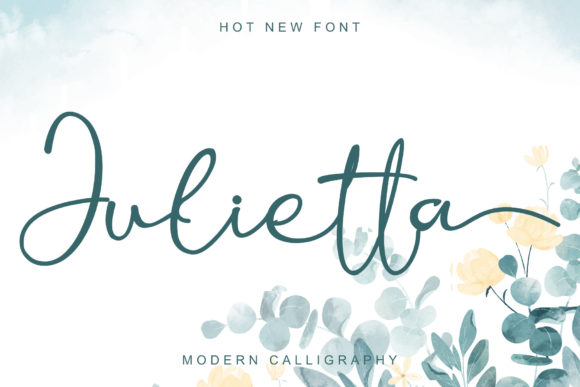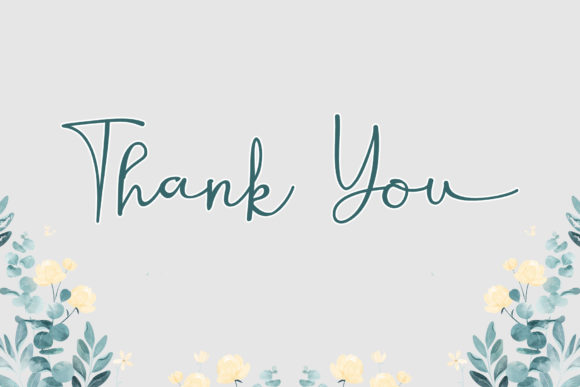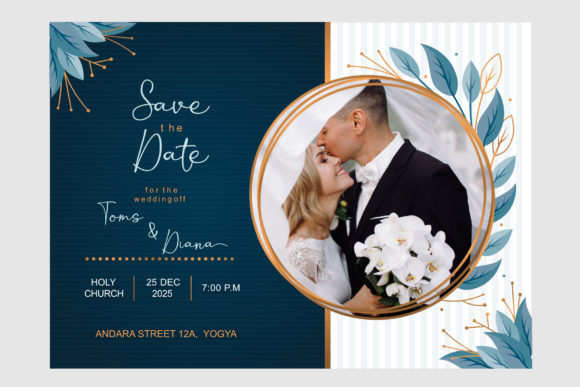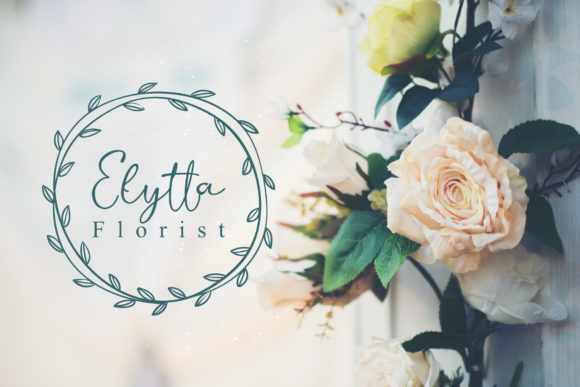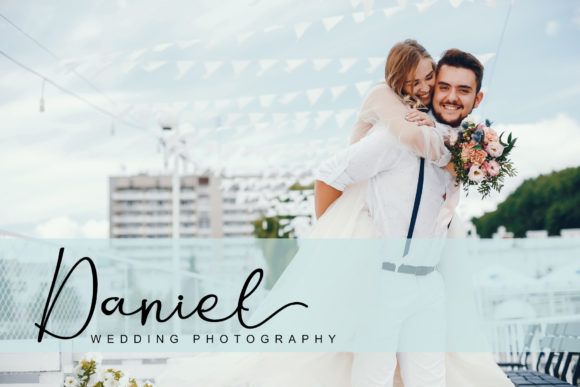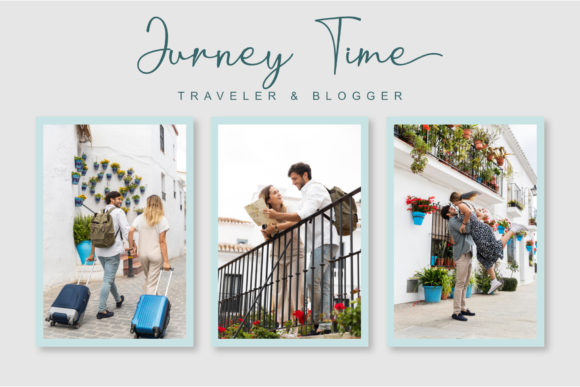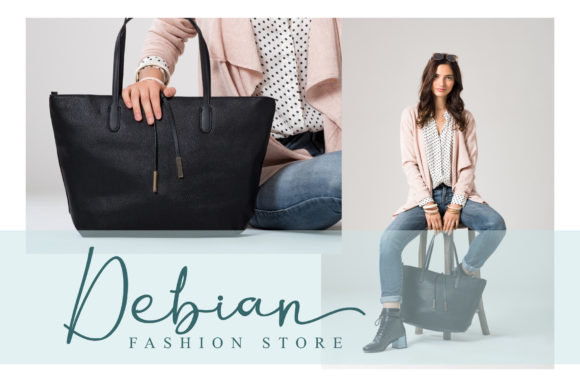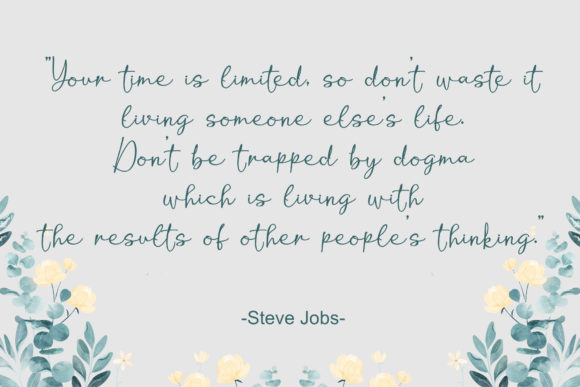
Julietta Font
About Julietta Font
The Julietta is a modern handwritten font with great care and natural looks. It is very suitable for invitations, wedding invitations, greeting cards, designs, and more.